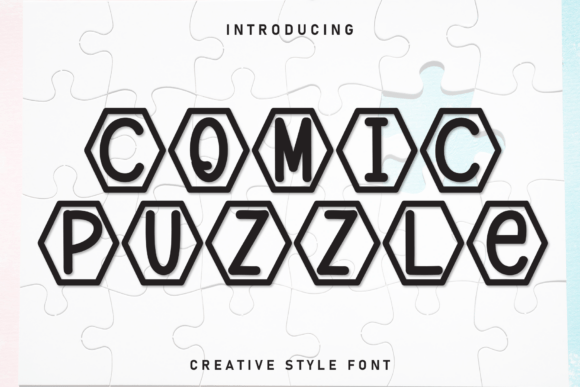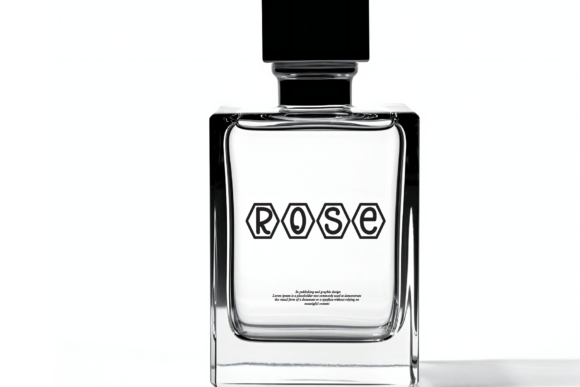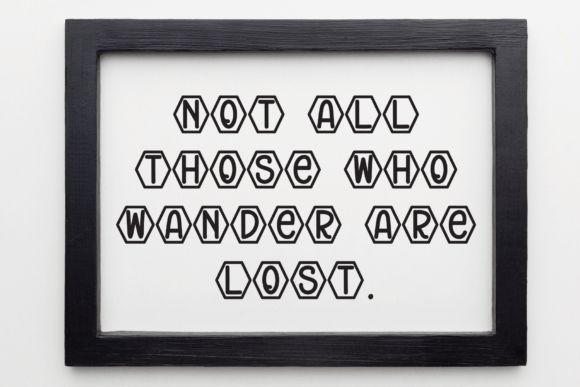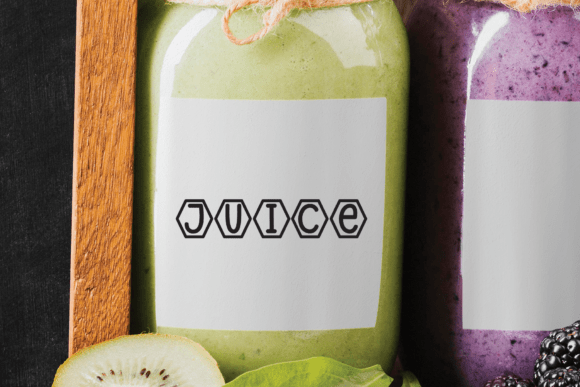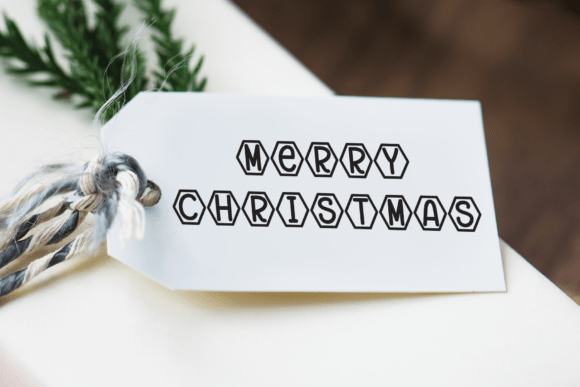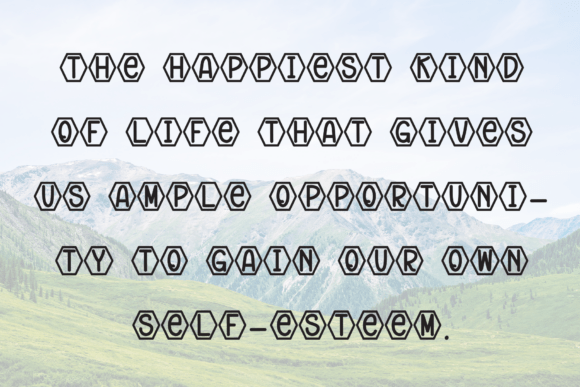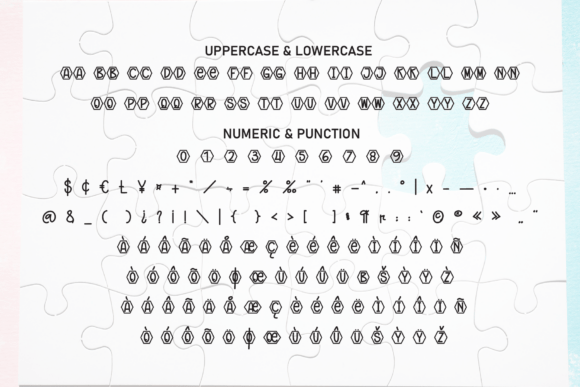
Unscramble the Fun: Discover the Comic Puzzle Font
Do you remember the thrill of piecing together a puzzle as a child, the sense of accomplishment as the final shape emerged from the chaos? For designers, creating engaging and interactive visual identities can be a similar puzzle to solve. Enter the Comic Puzzle Font, a playful display typeface that’s sure to bring a smile to your face and a touch of whimsy to your designs.
This imaginative font features a unique ‘puzzle’ concept, where each character is encased within a bold hexagonal frame, adding a modular and structured element to the letterforms. The result is a friendly, hand-drawn quality that’s perfect for children’s educational games, toy packaging, and creative branding that requires a lighthearted, interactive, and fun visual identity.
- Unique Character Set: The Comic Puzzle Font features a unique set of characters, including a wide range of punctuation marks, numerals, and special characters, making it suitable for comic book, graphic novel, and manga creators.
- Hand-Drawn Style: The font has a hand-drawn style, giving it a distinctive and artistic look that sets it apart from other fonts.
- Legibility: Despite its unique style, the Comic Puzzle Font is highly legible, making it suitable for body text, captions, and dialogue.
Comic Puzzle Font Review
Overall, I found the Comic Puzzle Font to be a fun and quirky addition to any design project. ✨ The font’s playful, hand-drawn feel is perfect for creating a lighthearted and approachable atmosphere.
Here are some of the things that work well with the Comic Puzzle Font:
- ✨ Unique and expressive character set – Each letter and symbol has a distinct personality that adds to the font’s charm.
- ✨ Great for headlines and titles – The font’s bold and playful nature makes it perfect for grabbing attention and setting the tone for a project.
- ✨ High-resolution and scalable – The font looks great at a variety of sizes and resolutions, making it easy to use in a range of applications.
- ⚠️ Limited language support – The font only includes a basic Latin character set, which may limit its use in certain languages or applications.
- ⚠️ May not be suitable for formal or professional projects – The font’s playful nature may not be suitable for more formal or professional projects where a more serious tone is desired.
Overall, I think the Comic Puzzle Font is a great addition to any design project where a lighthearted and playful tone is desired. With a little creativity, it can add a lot of personality and charm to a project.
Comic Puzzle Font is ideal for:
- Creating playful and eye-catching headlines
- Designing custom illustrations and graphics
- Adding a touch of whimsy to presentations and documents